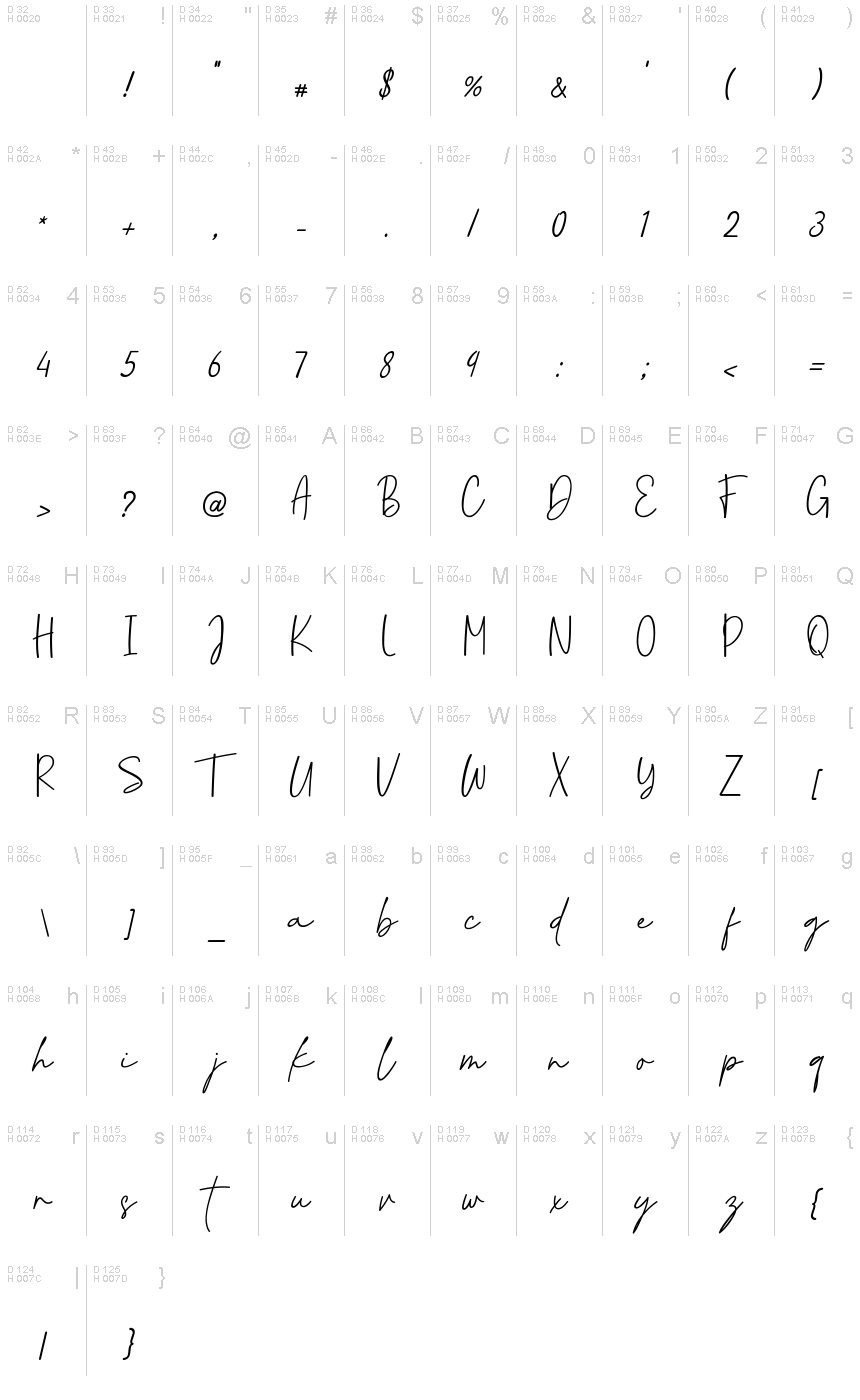
CoastlineCalligraphy Script
Coastline Calligraphy Script font is created by UI Creative. It is a elegant, flowing handwritten script font that will lift your designs to new levels! The casual, yet alluring flow of each phrase in this signature script font adds a personal touch that elevates any project to high artistic heights. Each curve and letter form are crafted with care to give an organic look while maintaining clean lines for easy readability.
Ideal use-cases for this versatile typeface include everything from business cards and posters to monograms & lettering; even branding materials benefit from its beautiful balance between expressive elegance and refined professionalism. Make Coastline Calligraphy Script take center stage today!